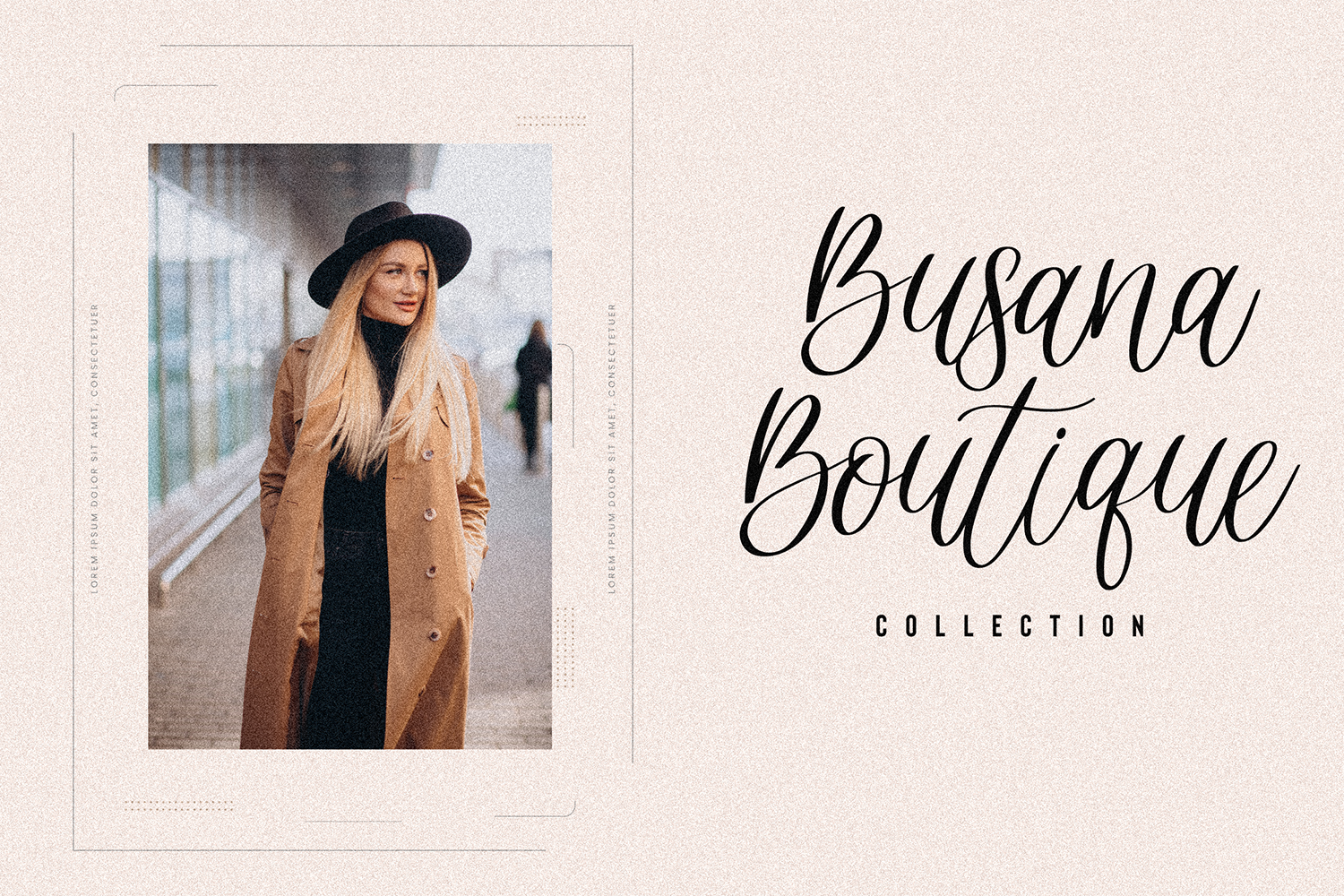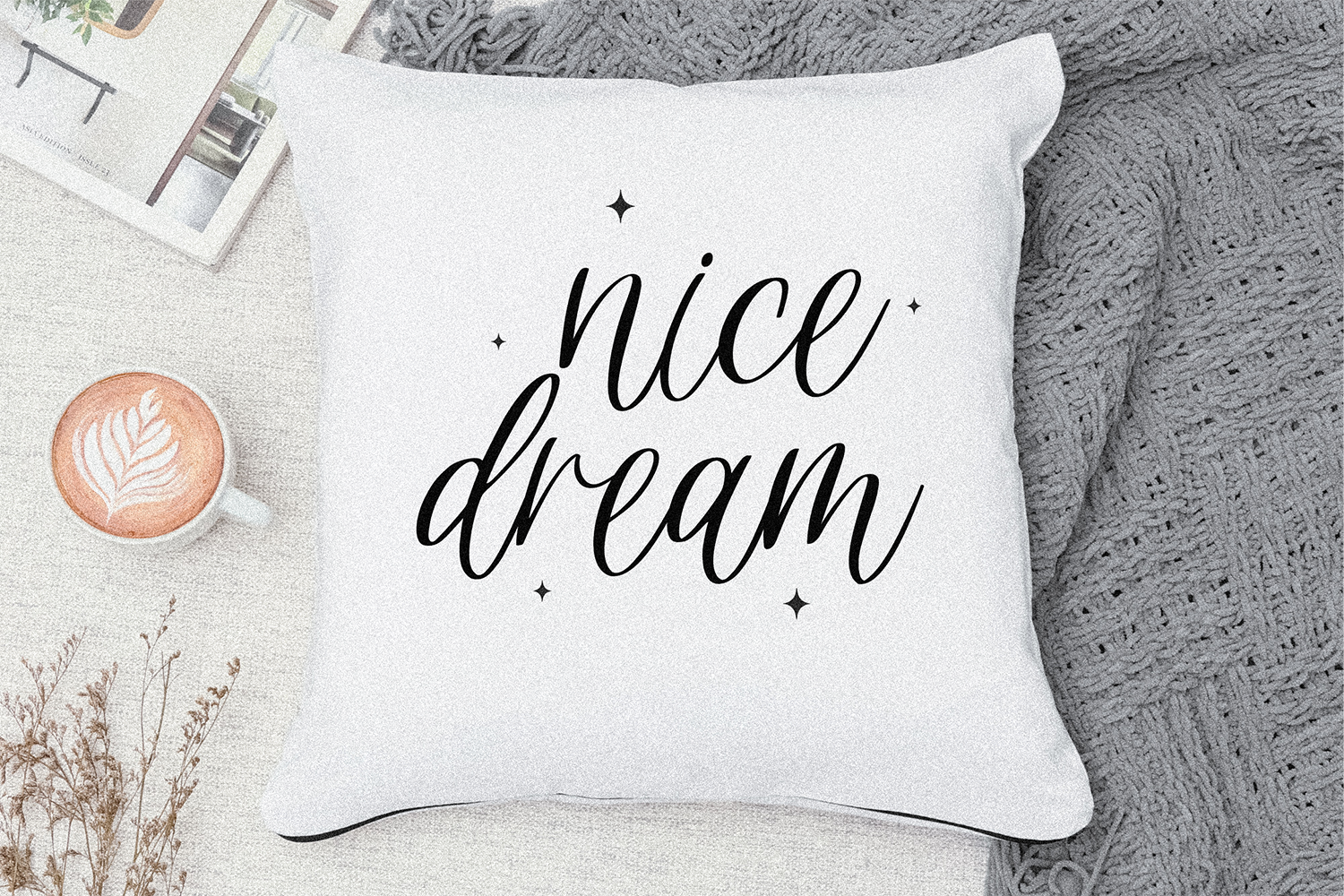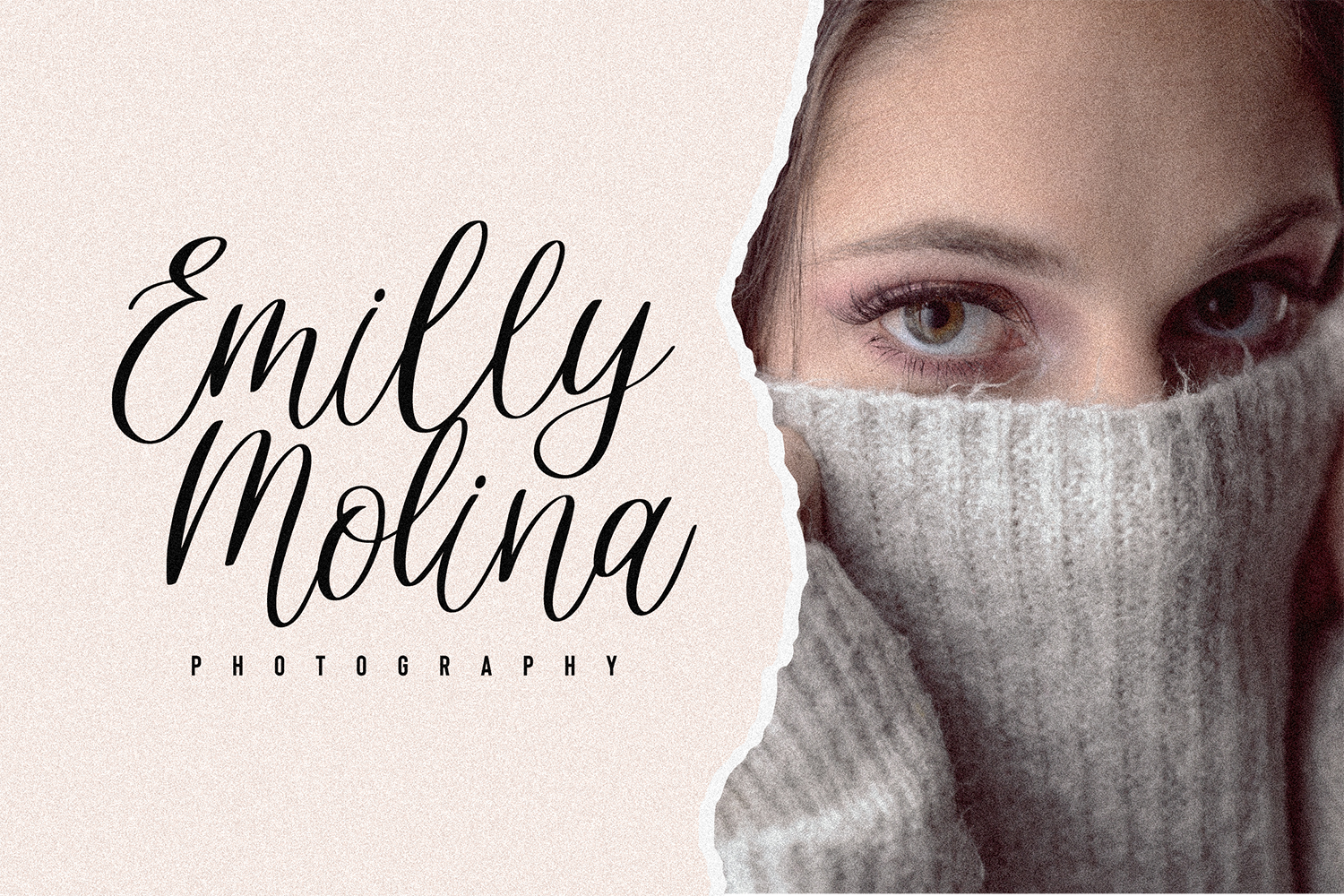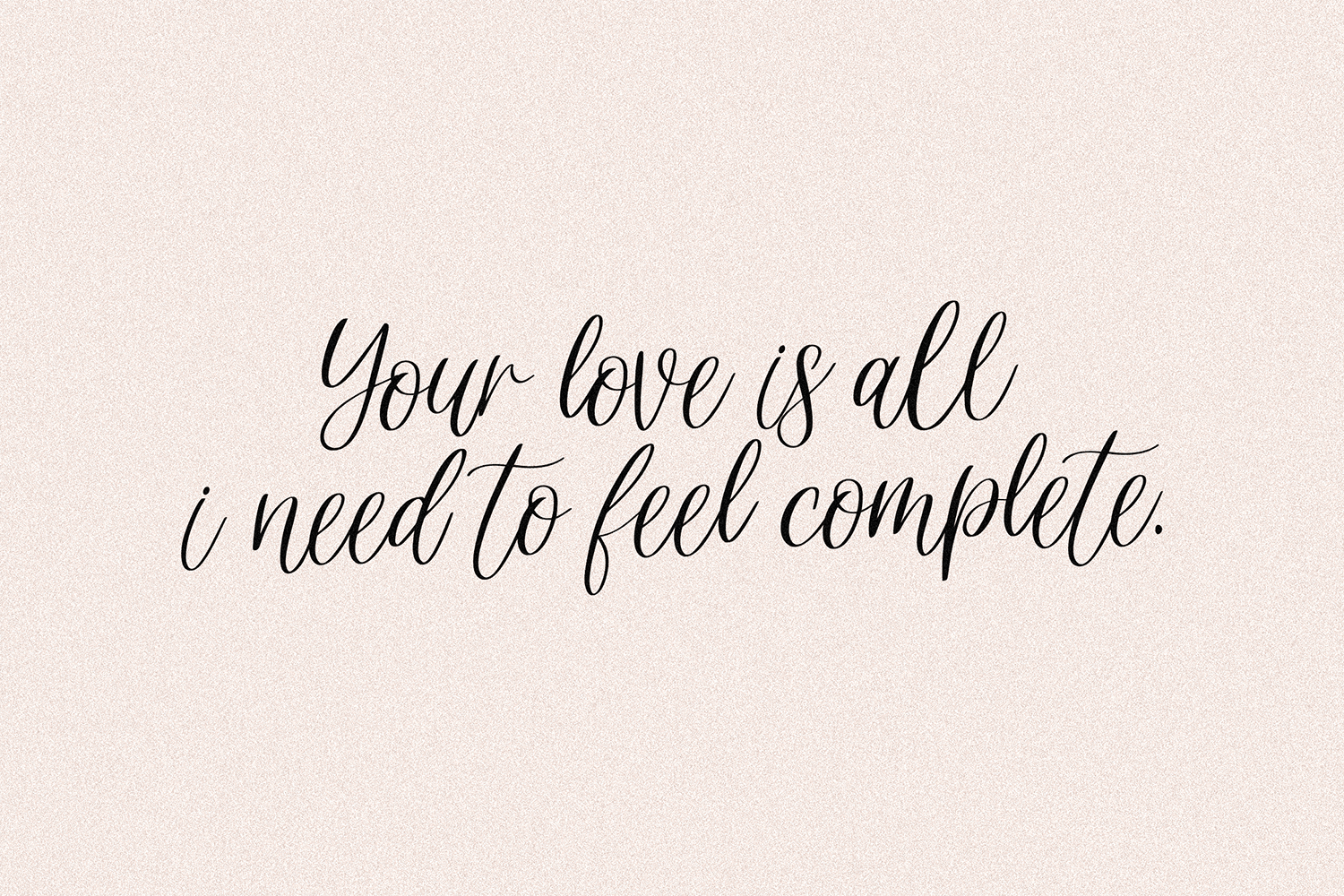
Blystnutter Free Font
Meet Blystnutter, an exquisite and delicate handwritten font adorned with charming swashes. Its unique elegance is sure to captivate a diverse range of creative projects, whether it’s letterheads, titles, or stationery. Elevate your design with the graceful charm of Blystnutter. This free typeface was designed by a talented Qwrtype Foundry. If you like it don’t forget to check out the full version.